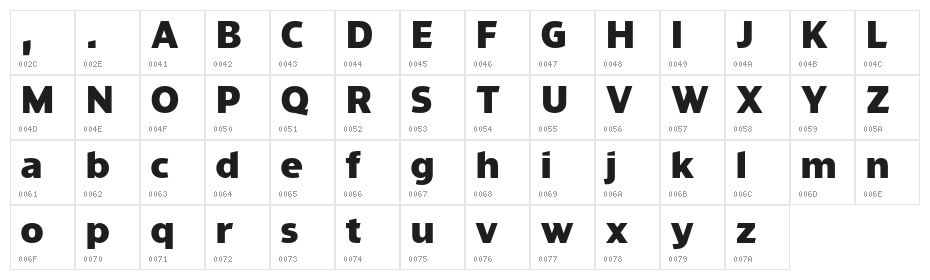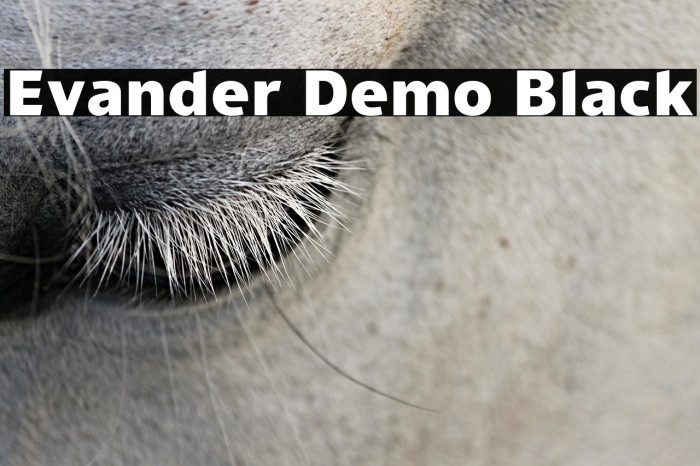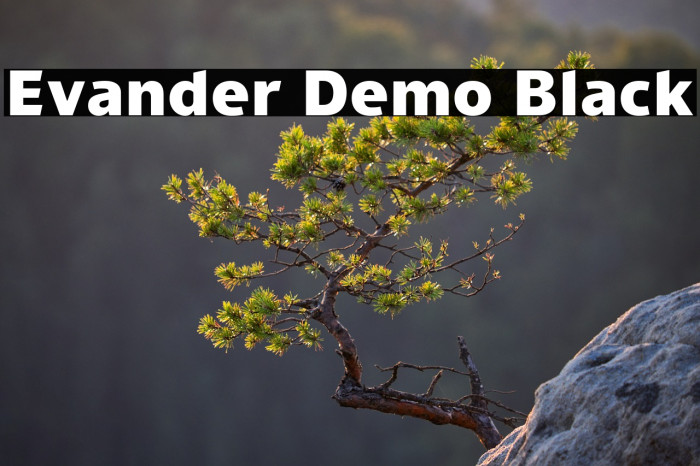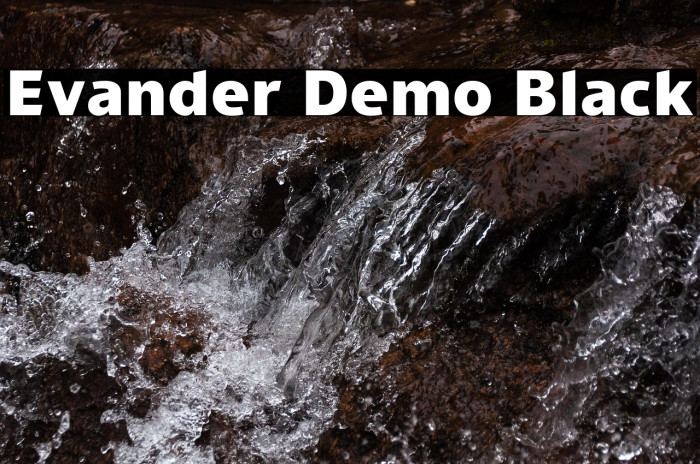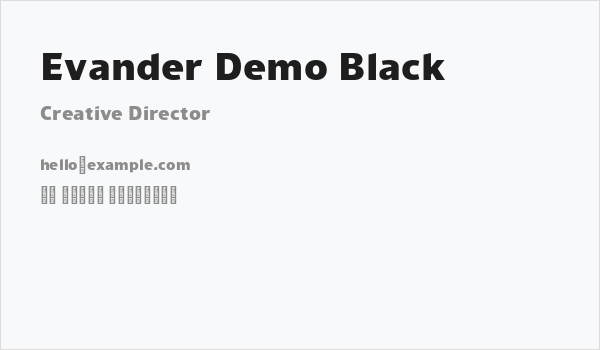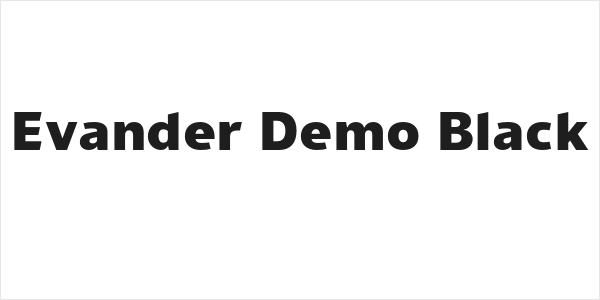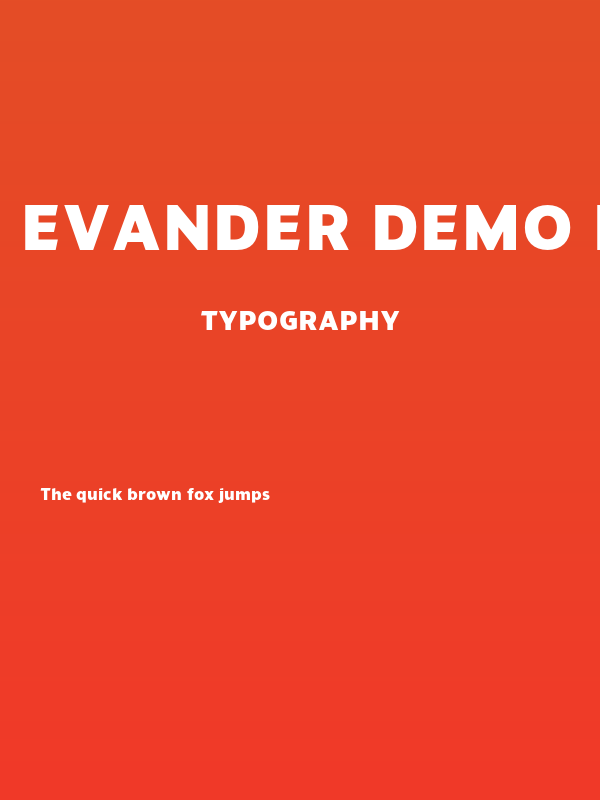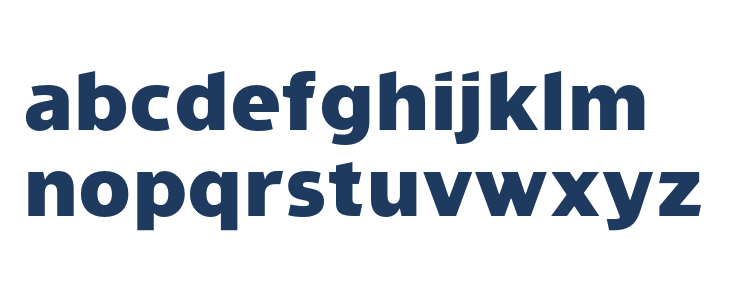
Evander Demo Black Font
Evander Demo Black Description
This font exhibits a bold and robust design, characterized by thick, uniform strokes that convey strength and modernity. The uppercase and lowercase letters maintain a consistent width, contributing to a cohesive and balanced appearance. The absence of serifs gives it a clean and contemporary look, making it highly legible and versatile for various applications. The font's geometric structure is evident in the symmetrical and evenly spaced characters, which enhances readability. The overall style is straightforward yet impactful, suitable for making strong visual statements.
| Proposed Projects | Ideal for branding, headlines, posters, and digital media where a strong, modern presence is desired. |